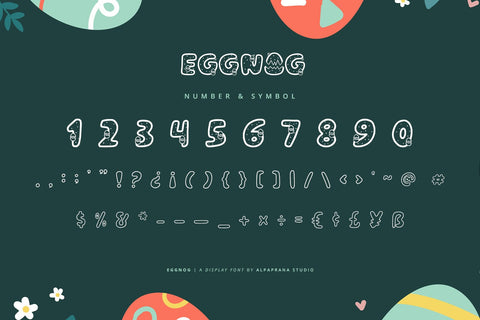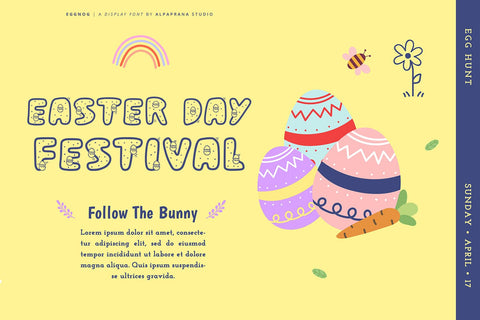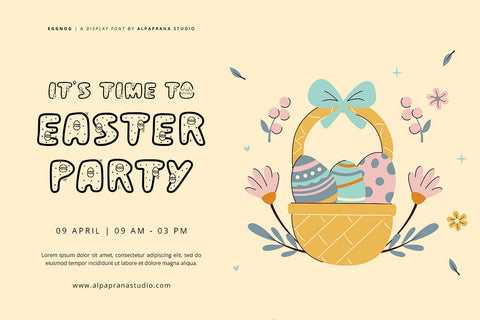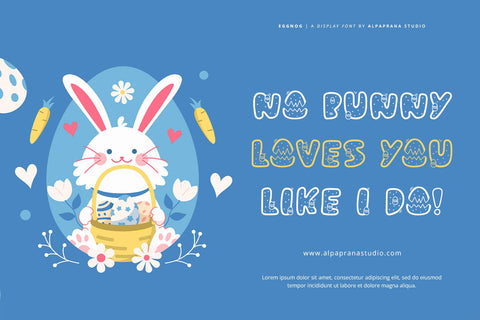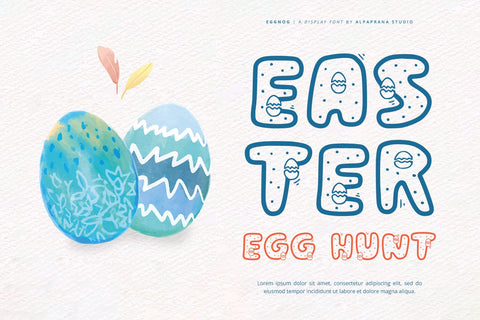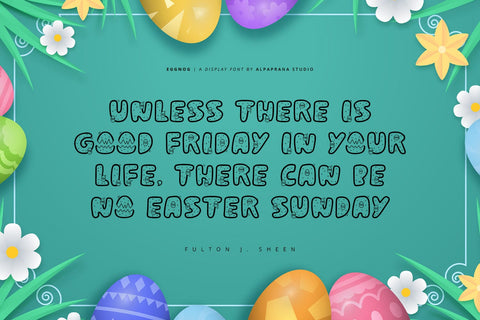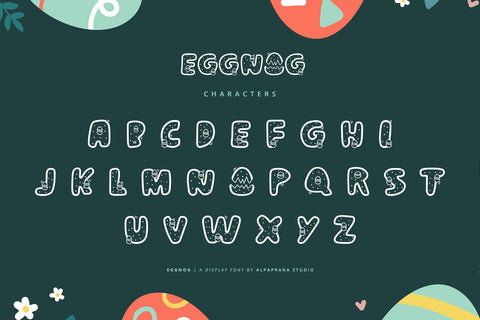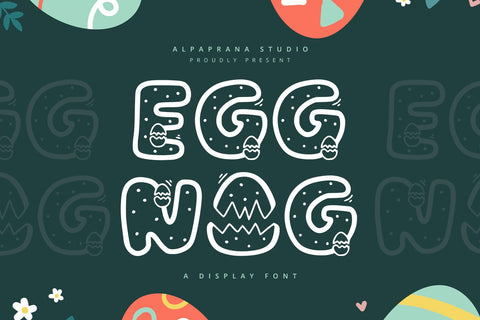
Eggnog - Display Font
Eggnog is a display font with cute and playful feels. It will be perfectly used for Branding, Logo Design, Lettering, Logotype, Clothing, Poster, magazine, packaging, posters, shopping bags, t-shirts, book covers, photography, special events and other design project.